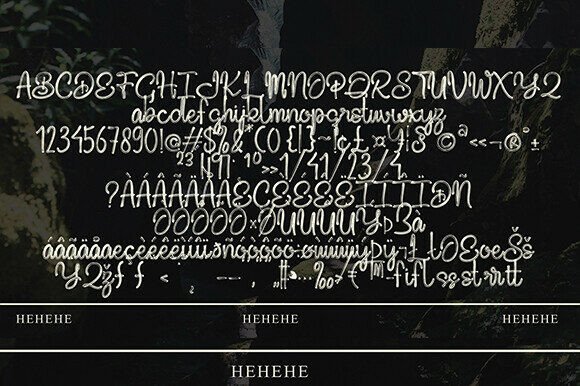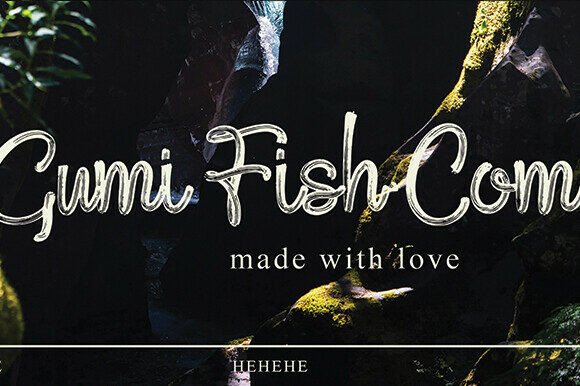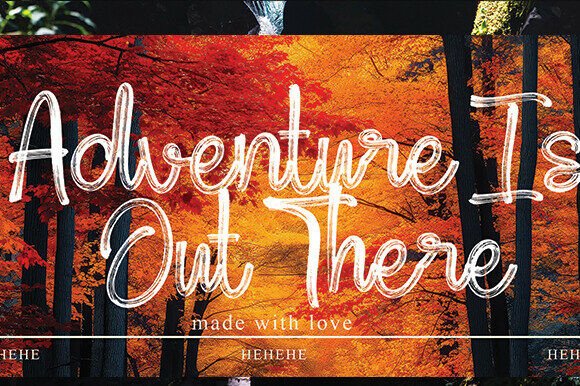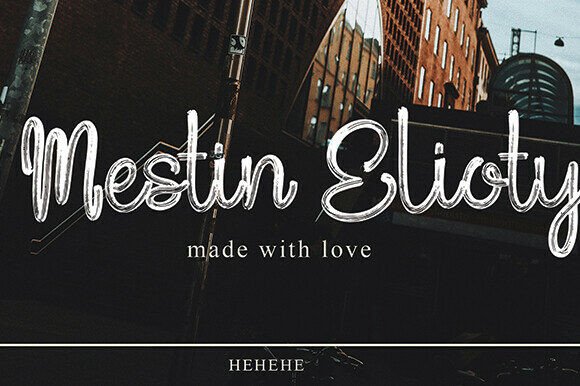
Etnic Sanstuy Font: Elevate Your Designs with Elegance and Sophistication
In the world of typography, a well-crafted font can make all the difference in elevating your designs from ordinary to extraordinary. If you’re a designer or crafter looking for a stylish and elegant handwritten font, look no further than Etnic Sanstuy. This beautiful font is defined by smooth curves and is perfect for fashion branding or editorial designs. In this article, we’ll explore the features and benefits of Etnic Sanstuy and how it can add a touch of sophistication to your creative projects.
The Characteristics of Etnic Sanstuy Font
Etnic Sanstuy is a stylish and incredibly elegant handwritten font that exudes refinement and poise. Its smooth curves and fluid lines create a sense of movement and fluidity, making it perfect for designs that require a touch of elegance. The font’s classic and timeless feel makes it suitable for a wide range of applications, from fashion branding and editorial designs to packaging and advertising.
Key Features of Etnic Sanstuy Font
- Smooth Curves: Etnic Sanstuy’s smooth curves create a sense of fluidity and movement, making it perfect for designs that require a touch of elegance.
- Elegant Handwritten Style: The font’s elegant handwritten style makes it suitable for fashion branding, editorial designs, and other creative projects that require a touch of sophistication.
- PUA Encoded: Etnic Sanstuy is PUA encoded, which means you can access all glyphs and ligatures with ease, giving you maximum flexibility and creative control.
With Etnic Sanstuy, the possibilities are endless. Whether you’re a designer looking to create a stunning fashion brand or a crafter looking to add a touch of elegance to your DIY projects, this font is the perfect choice. Here are just a few examples of how you can use Etnic Sanstuy:
- Fashion Branding: Use Etnic Sanstuy to create a stunning fashion brand that exudes elegance and sophistication.
- Editorial Designs: Add a touch of elegance to your editorial designs, such as magazines, newspapers, and blogs.
- Packaging: Use Etnic Sanstuy to create beautiful and eye-catching packaging that stands out on store shelves.
- Advertising: Create stunning advertisements that grab attention and leave a lasting impression.
Why Choose Etnic Sanstuy Font?
So why choose Etnic Sanstuy font for your designs? Here are just a few reasons:
- Unique and Elegant: Etnic Sanstuy is a unique and elegant font that will set your designs apart from the crowd.
- Versatile: The font’s classic and timeless feel makes it suitable for a wide range of applications.
- Easy to Use: Etnic Sanstuy is PUA encoded, making it easy to access all glyphs and ligatures.
In conclusion, Etnic Sanstuy font is a stylish and elegant handwritten font that is perfect for designers and crafters looking to add a touch of sophistication to their creative projects. With its smooth curves, elegant handwritten style, and PUA encoding, Etnic Sanstuy is the perfect choice for fashion branding, editorial designs, packaging, and advertising. So why wait? Explore the endless possibilities of Etnic Sanstuy font and elevate your designs to new heights of elegance and sophistication.